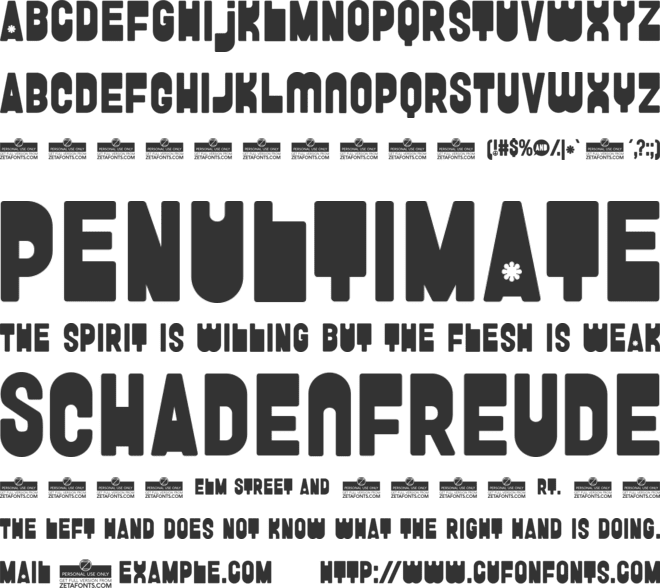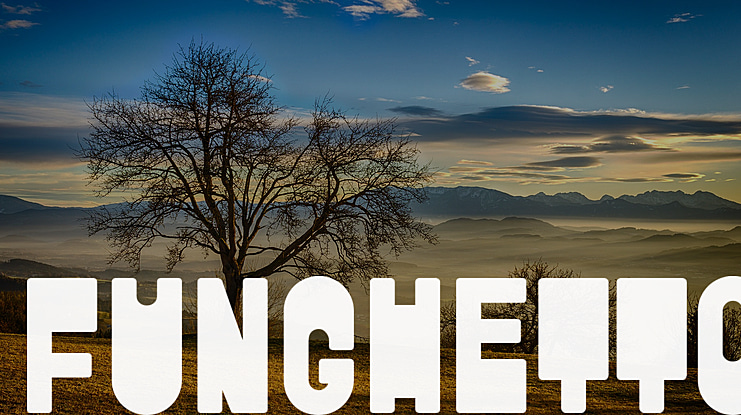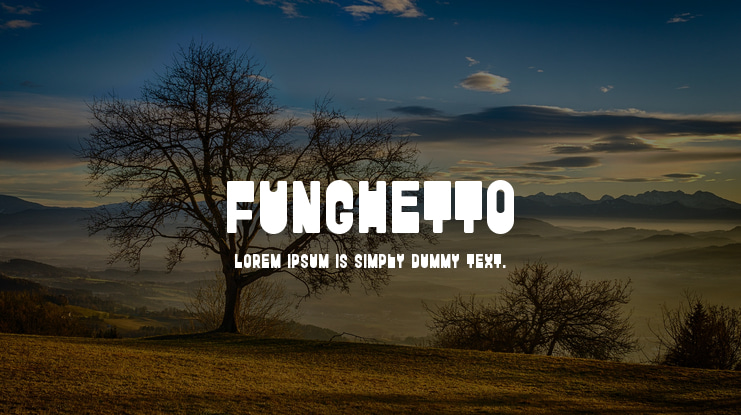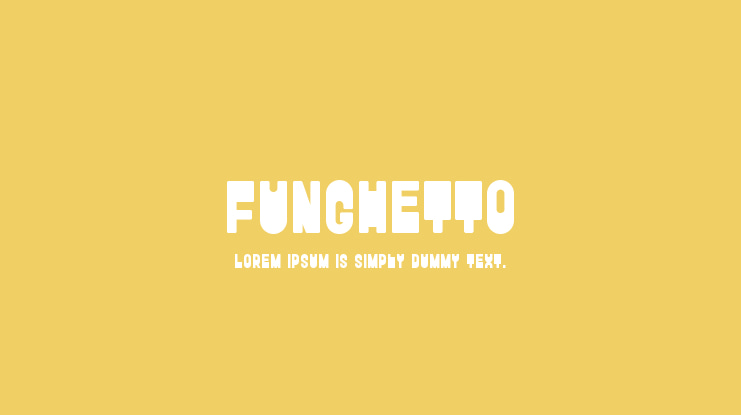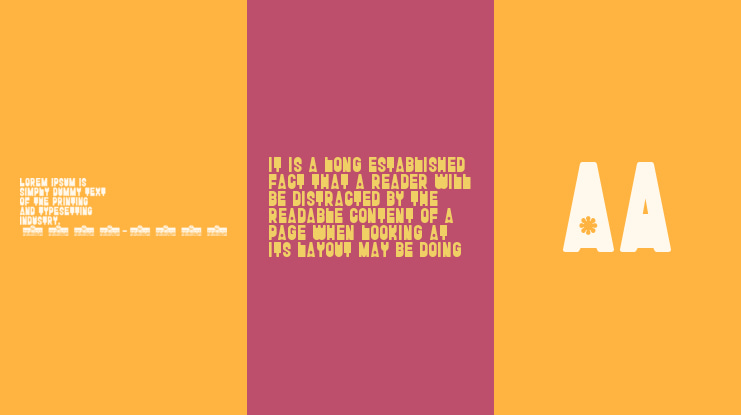
FunGhetto Font
Cosimo Lorenzo Pancini and Francesco Canovaro
HAPPY FUNGHETTO is a typeface variant from the SUGO family of sans serif typefaces. Itâs inspired by hippy culture of the seventies and comes with a double uppercase set with a set of alternate letters.